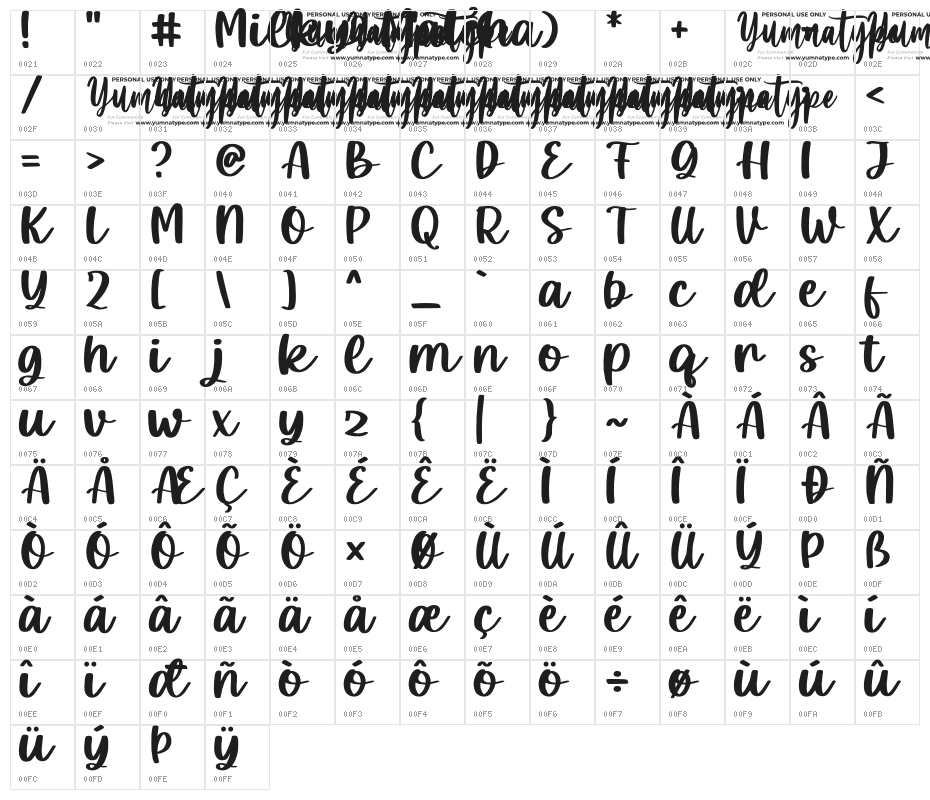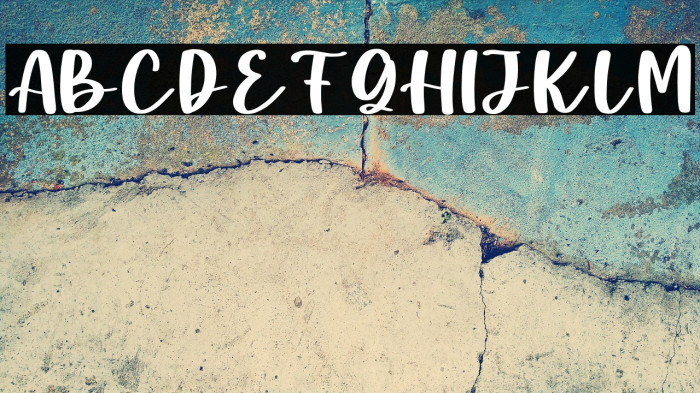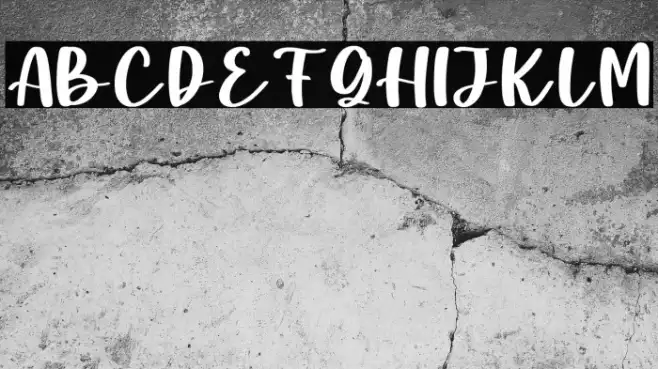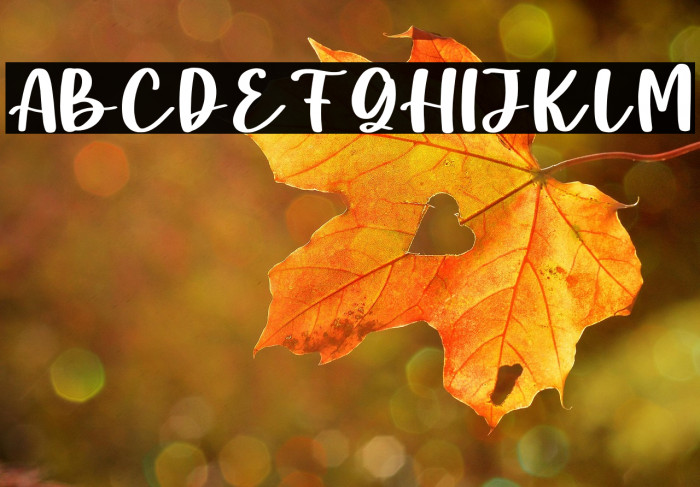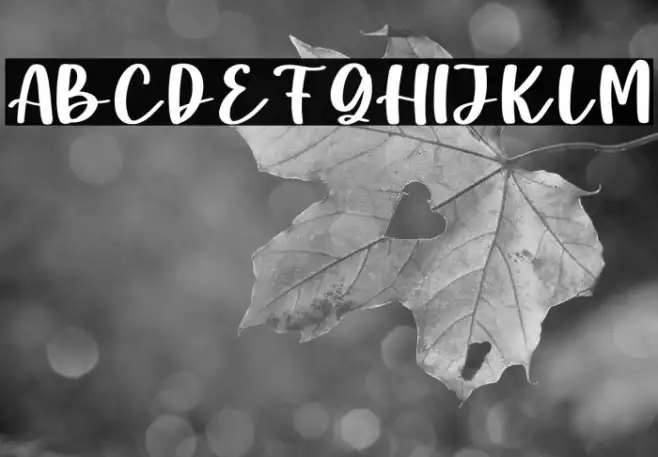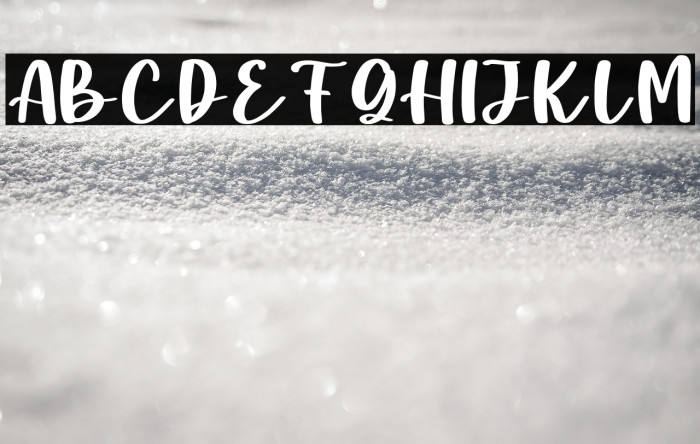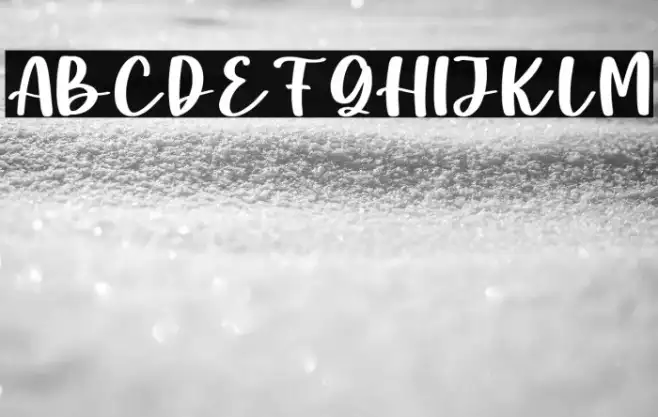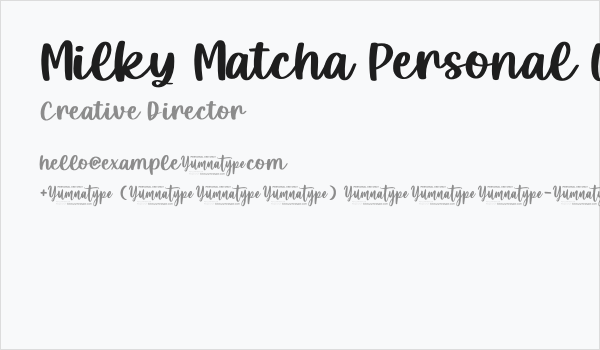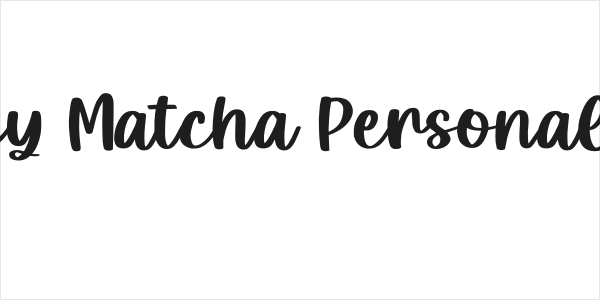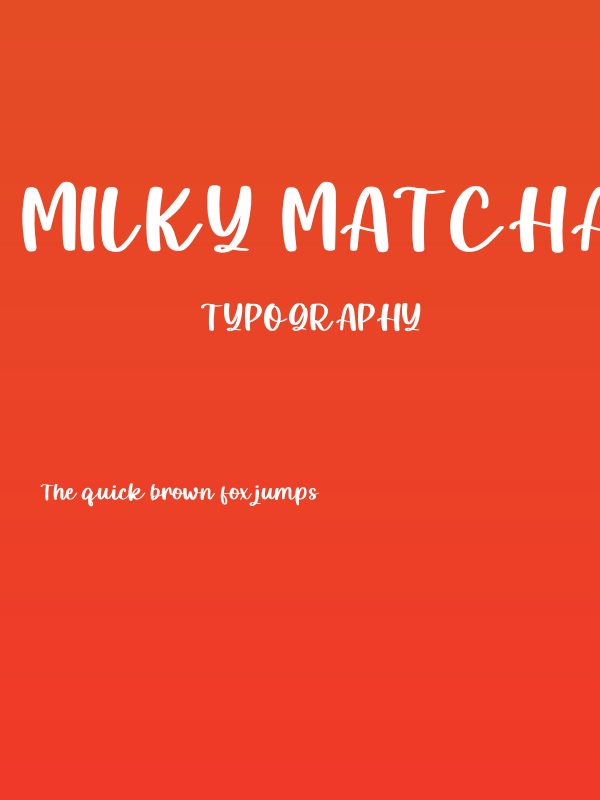
Milky Matcha Personal Use Font
Milky Matcha Personal Use Description
This font features a playful and bold script style with a handwritten feel. The letters are connected smoothly, giving it a flowing and dynamic appearance. The strokes are thick and consistent, providing a strong visual impact. The uppercase letters are slightly more structured, while the lowercase letters exhibit a more casual and relaxed style. This font includes a full set of uppercase and lowercase letters, numbers, and a variety of special characters, making it versatile for different design needs. Its boldness and unique character make it stand out, suitable for projects that require a personal and artistic touch.